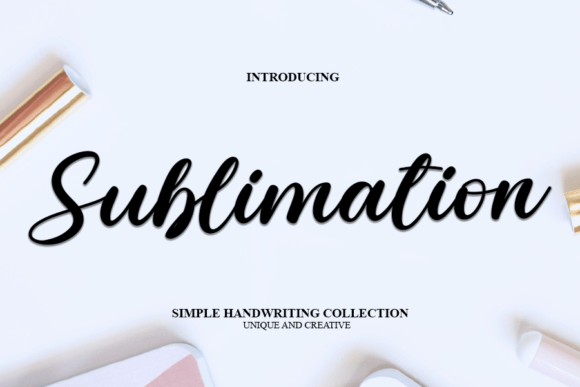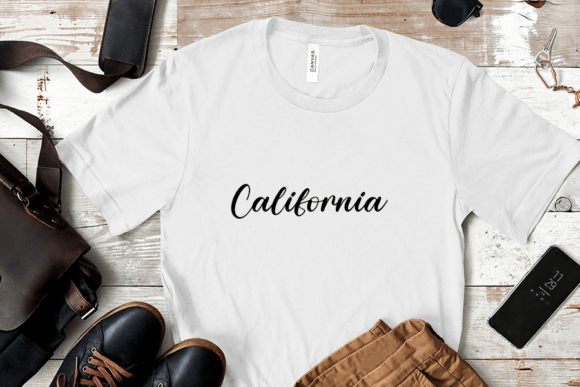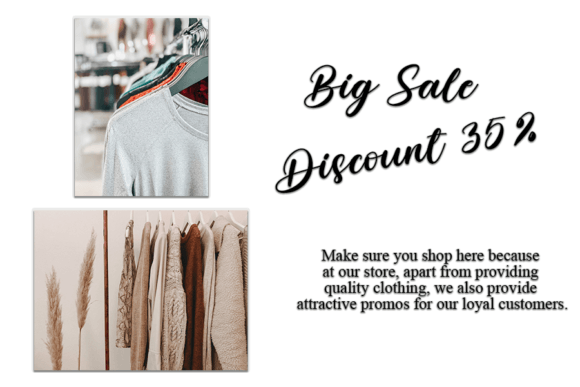
Sublimation: A Unique Script Font for Creative and Versatile Designs
Looking for a unique script font that adds personality and charm to your projects? Sublimation is exactly what you need. Designed with graceful curves and stylish strokes, Sublimation brings sophistication to everything from digital designs to handcrafted projects.
Elegant Yet Playful Typography for Every Occasion
Sublimation stands out with its distinctive letterforms and artistic flow. Unlike generic fonts, it’s full of character while remaining readable and practical.
This font is perfect for:
Craft projects like stickers, labels, and SVG files
Greeting cards for birthdays, weddings, or holidays
Digital presentations and slideshows
Social media posts and Instagram quotes
Logos, watermarks, and product branding
Invitations and printable party decor
Its flexibility makes it ideal for both personal and professional projects.
What Makes Sublimation a Unique Script Font?
A great script font doesn’t just look good—it should be easy to work with. Sublimation checks all the boxes for usability, beauty, and versatility. It blends classic script aesthetics with a modern twist, which allows it to fit a wide range of creative needs.
Here’s why Sublimation is a top-tier unique script font:
Stylish uppercase and lowercase combinations
Smooth ligatures and flowing character connections
Its smooth and stylish script makes it ideal for branding, printables, and everything in between. You’ll find that it elevates the look of your content while remaining approachable and friendly.
Add Personality with Every Letter
Typography is all about mood and expression. Sublimation delivers both. The font’s subtle playfulness and graceful movement make it a fantastic choice for designers who want more than just the basics.
You can:
Pair it with sans-serif fonts for modern branding
Use it in overlays for product photos or digital downloads
Add a personalized touch to craft cut files and handmade items
Its natural vibe and elegant design help every word feel more meaningful.
Whether you’re crafting something personal or building a professional brand, Sublimation is the unique script font that adds charm, clarity, and creativity to your designs.